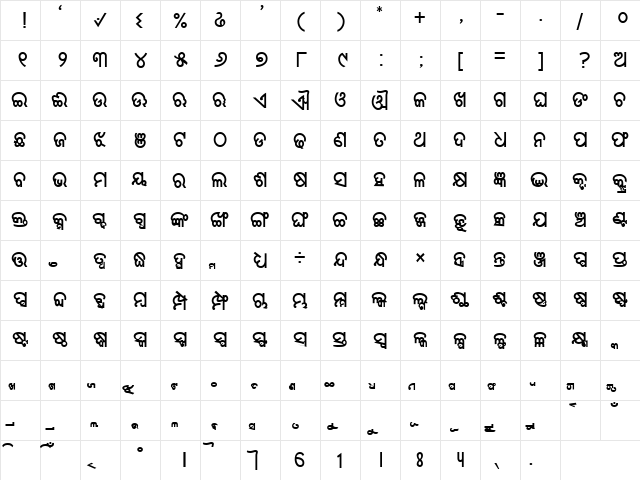
AkrutiOriChandra-99 Bold Font Preview
Design Context for AkrutiOriChandra-99 Typeface
AkrutiOriChandra-99 flows with the natural rhythm of handwritten lettering, making it ideal for designs that call for warmth and personal expression. Its bold stroke weight gives it real presence on the page.